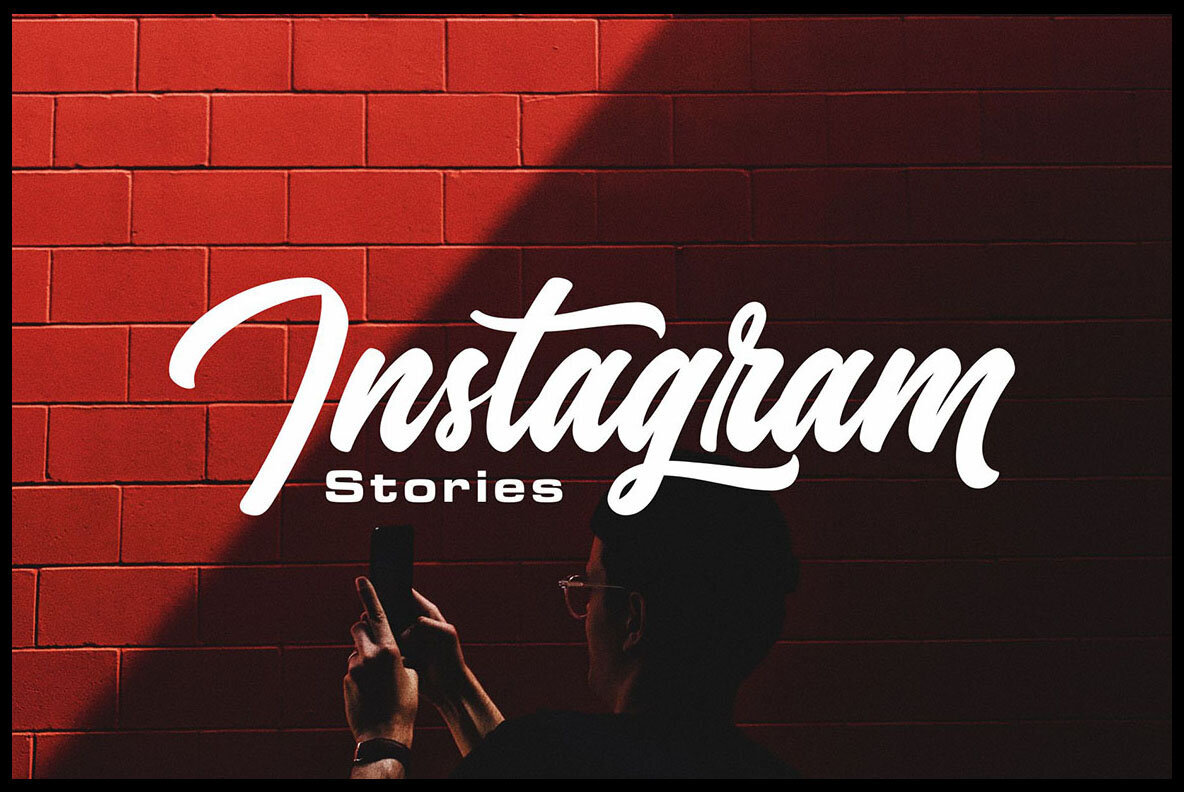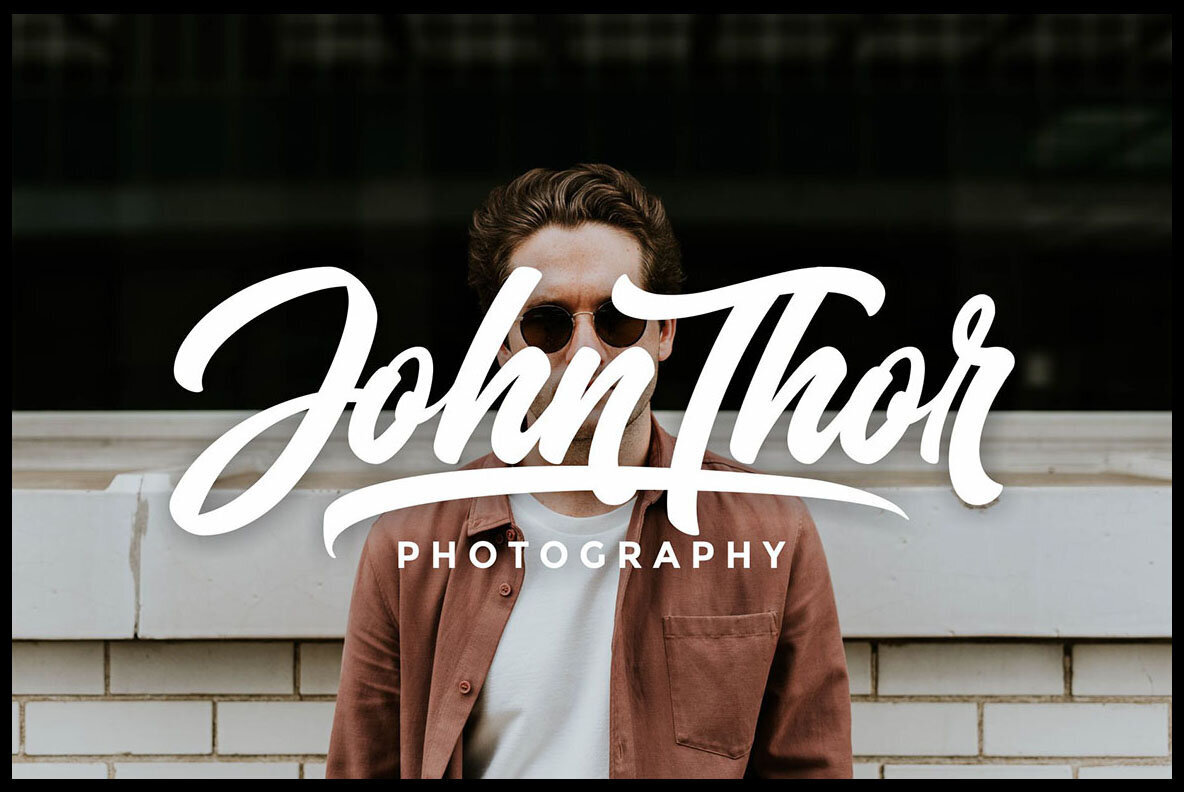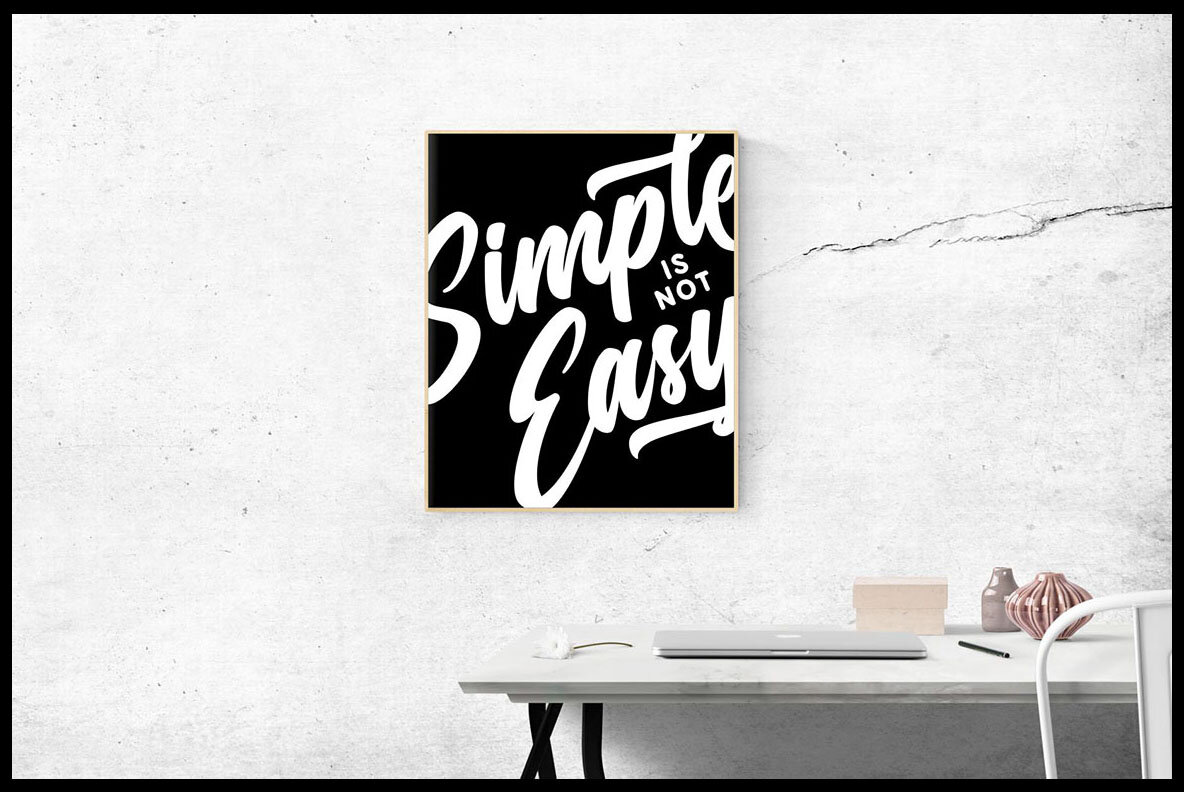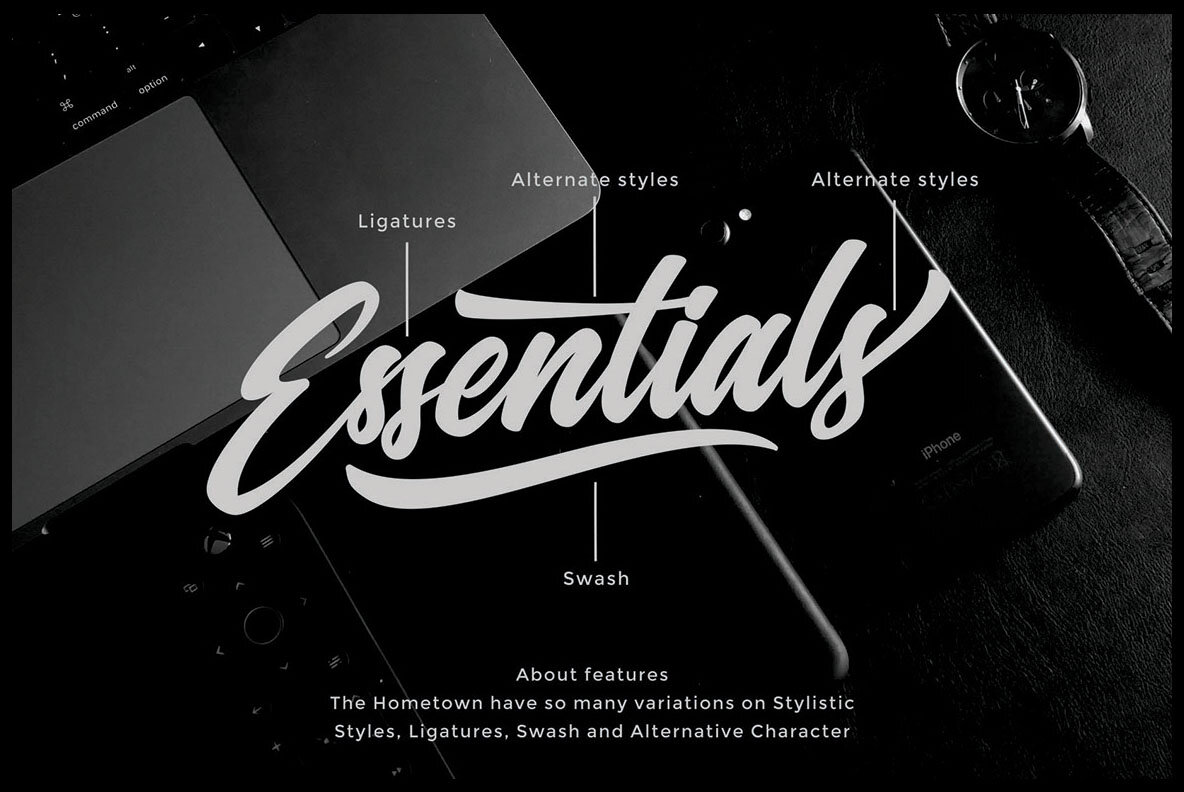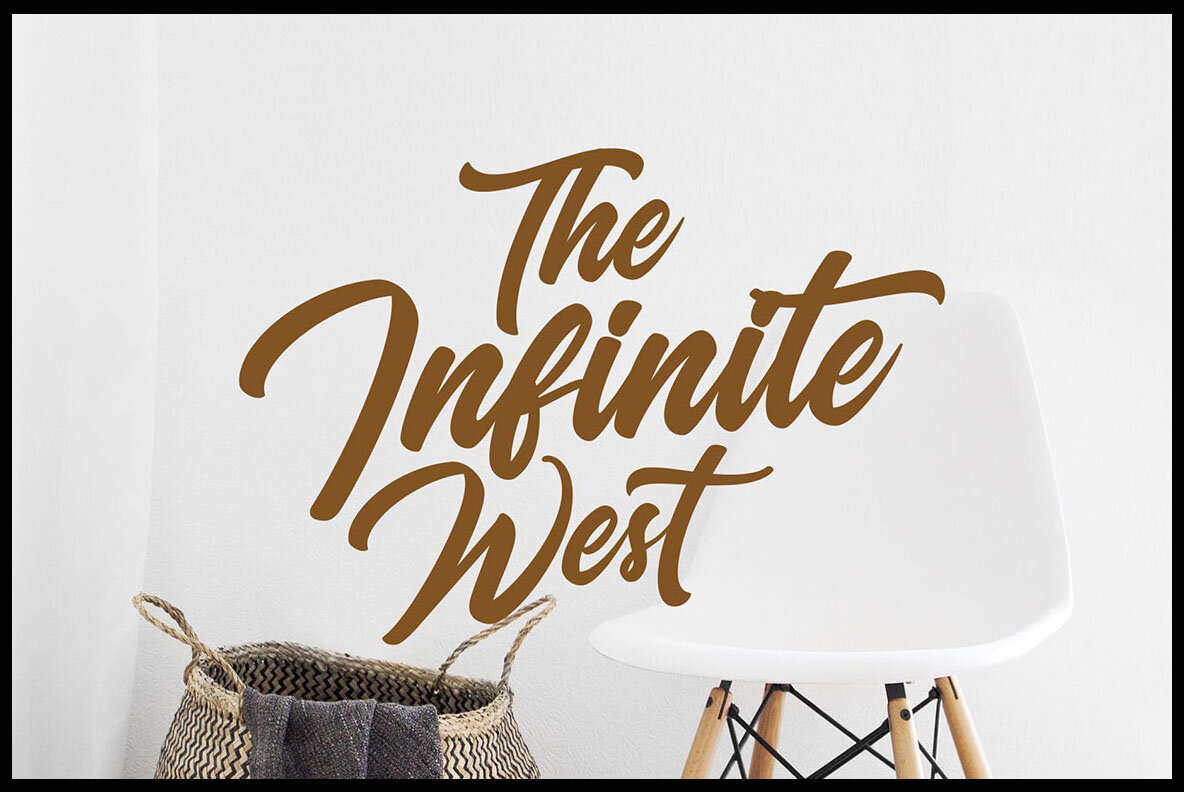
The Hometown Font
Creative freehand or casual script font for your new artworks. With lot of alternate characters and swash font so you can create amazing headers or titles.